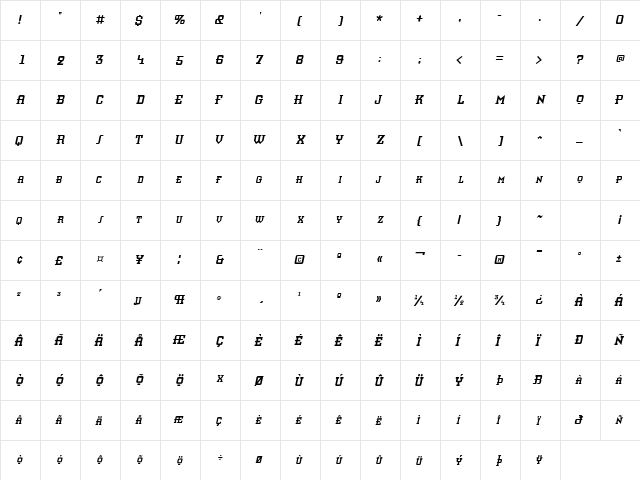
KnomenCondensed Italic Font Preview
Design Context for KnomenCondensed Typeface
KnomenCondensed takes a measured approach to typography — its balanced proportions and neutral character make it a reliable workhorse for both digital and print work. The dynamic lean of this cut emphasises speed and emphasis in any layout. The condensed width makes it efficient for tight spaces without sacrificing legibility.